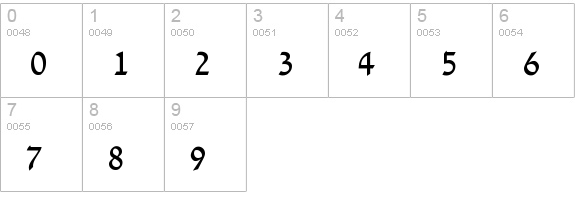
David Regular is the standard, neutral variant in the David typeface family \xE2\x80\x94 well suited to general body text, paragraphs, and standard typographic work.
David Regular font is a timeless and classic typeface that exudes elegance and sophistication. With its clean lines and balanced proportions, this font is perfect for a wide range of design projects, from formal invitations to corporate branding. The versatility of David Regular font makes it a must-have in any designer's toolkit. What makes this font even more appealing is that it is available for free download at FontsMarket.com. Now you can access this high-quality typeface without any cost, allowing you to elevate your designs without breaking the bank. Don't miss out on the opportunity to enhance your projects with the beautiful David Regular font. Download it today and see the difference it can make in your designs.